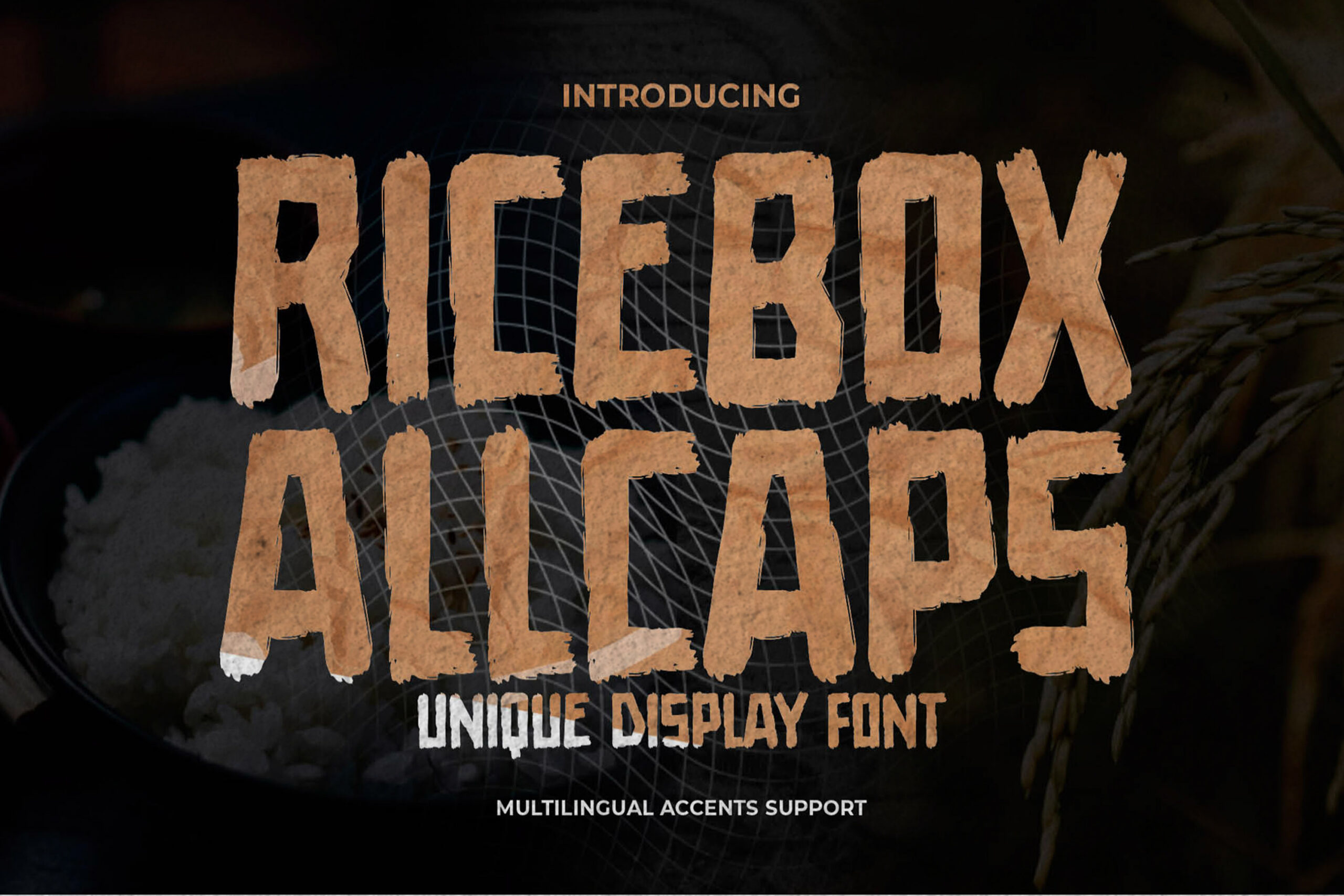
Ricebox Allcaps – Unique Display Font is an authentic display Font that is written casually and quickly.
That is why Ricebox Allcaps has a cute, and unique characteristic more natural look. Ricebox Allcaps Perfect for designs, branding projects, Logo design,Quotes product packaging and another Project that require fun font.